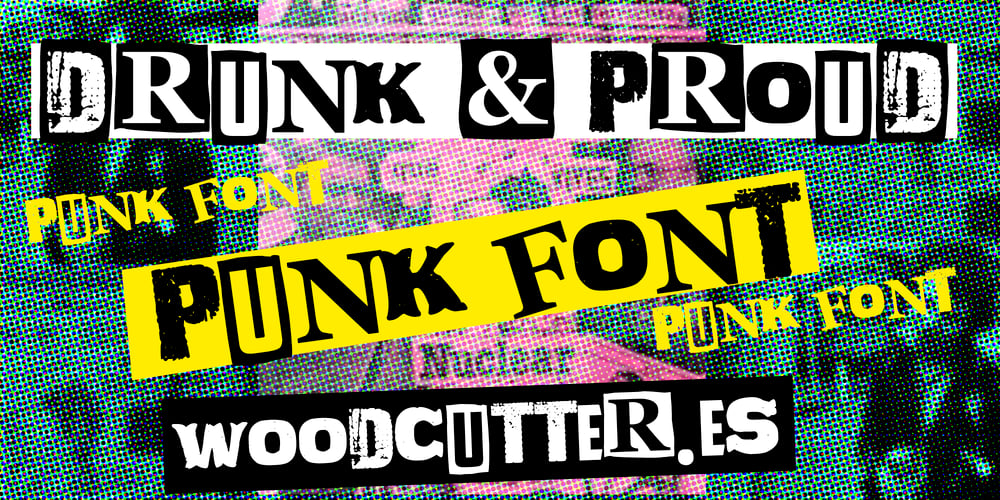
Drunk & Proud
Drunk & Proud font
Drunk & Proud Font Family was designed by Jordi Manero and published by Woodcutter. Drunk & Proud contains 1 styles and family package options. “Drunk and Proud” is a bold and rebellious typeface that embodies the essence of the punk movement. Its chaotic and distinctive letters are designed to challenge convention, adding a wild touch to your designs. With carefully incorporated accents and punctuation marks, this typeface maintains its versatility. Perfect for projects seeking a disruptive and daring image, “Drunk and Proud” is the ideal choice for posters, album covers, and edgy designs.